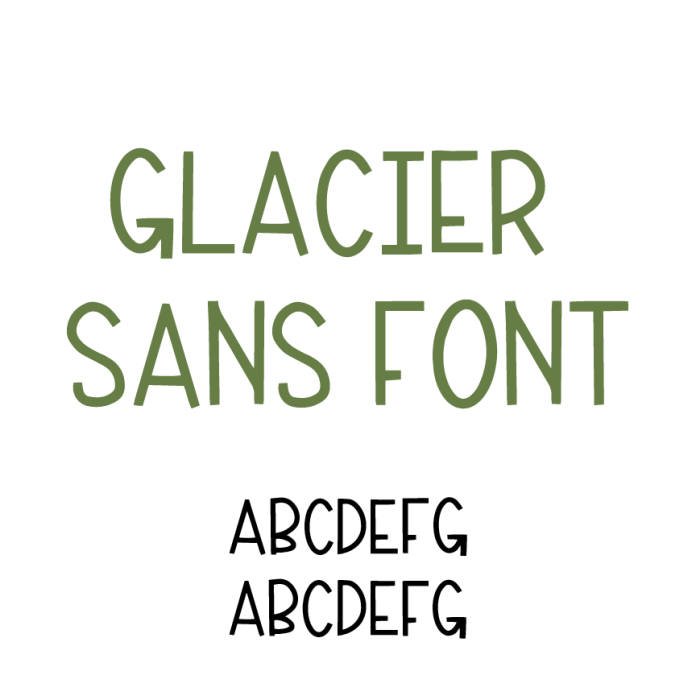
Introducing Glacier Sans Serif Font – a sleek, modern, and versatile font designed for Silhouette crafters and designers! With its clean lines, smooth curves, and contemporary appeal, Glacier is perfect for vinyl decals, T-shirts, logos, invitations, home décor, and more. This cut-friendly sans serif ensures crisp, precise cuts on your Silhouette machine, making it ideal for both bold headlines and delicate text. Whether you're creating minimalist designs, branding projects, or stylish DIY crafts, Glacier delivers a polished, professional look every time. Elevate your creations with Glacier Sans Serif – the perfect blend of elegance and simplicity!